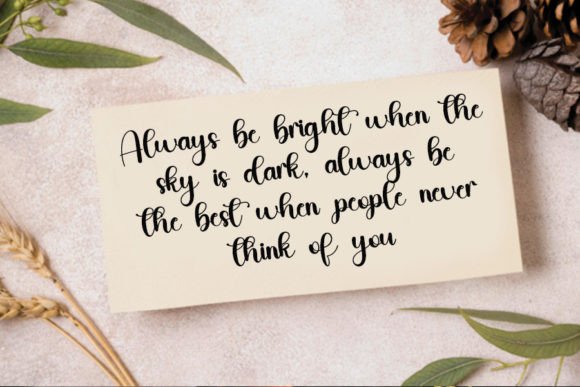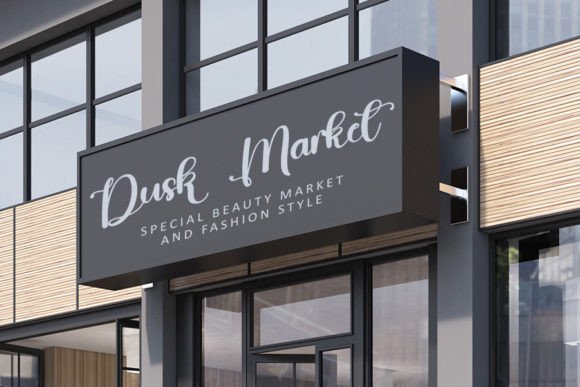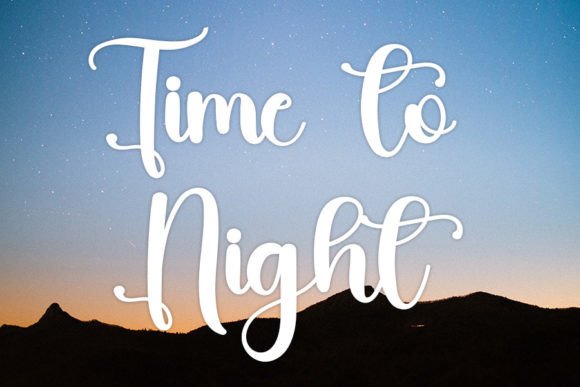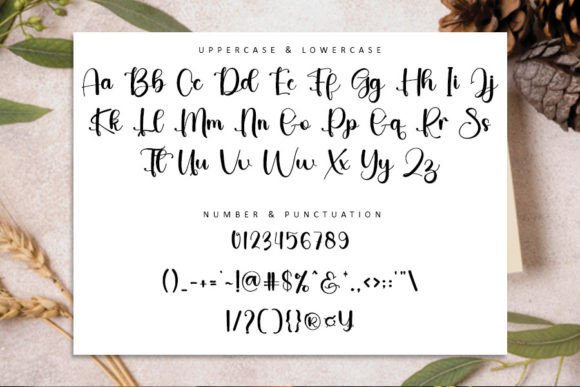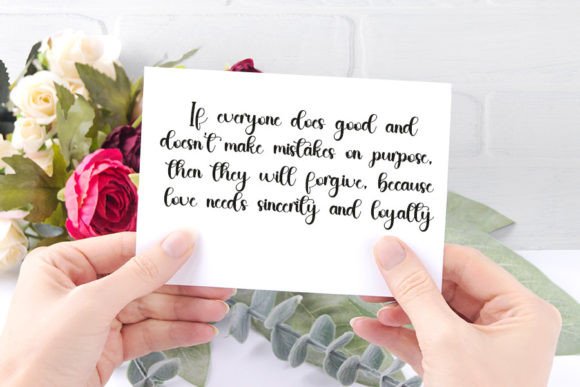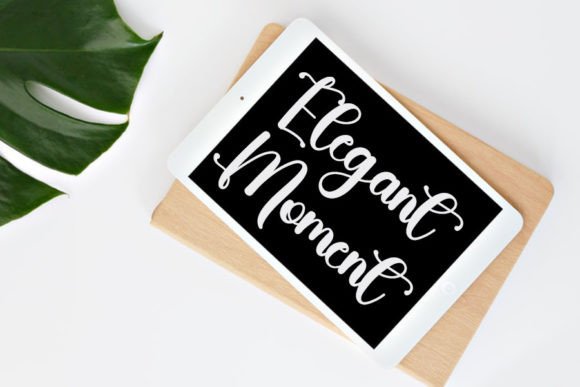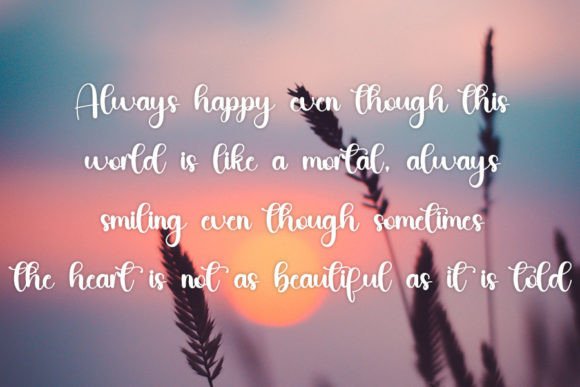
Dusk Font
About Dusk Font
Introducing “Dusk,” a beautiful and refined handwritten font designed to bring a touch of class and modernity to your creative projects. This versatile font is well-suited for logos, branding, invitations, stationery, wedding designs, social media posts, and more. With its elegance and sophistication, “Dusk” adds a timeless and stylish aesthetic to a variety of applications.
The refined handwritten style of “Dusk” captures a sense of elegance and modernity. Its versatility allows it to seamlessly fit into different design contexts, making it a versatile choice for various creative endeavors.
Imagine “Dusk” gracing your logo, where its refined script creates a sophisticated and memorable brand identity. Picture it on wedding invitations, adding a touch of romance and beauty to your special event. Envision it becoming the go-to font for your social media posts, creating a cohesive and elegant presence.
“Dusk” is not just a font; it’s a design element that brings beauty and refinement to your projects. Its PUA encoding adds an extra layer of versatility, allowing you to access amazing glyphs and ligatures with ease.
Add “Dusk” to your font collection and experience how it effortlessly enhances your creative endeavors. Let it be the beautiful and refined handwritten font that elevates the visual impact of your logos, branding, invitations, and more!